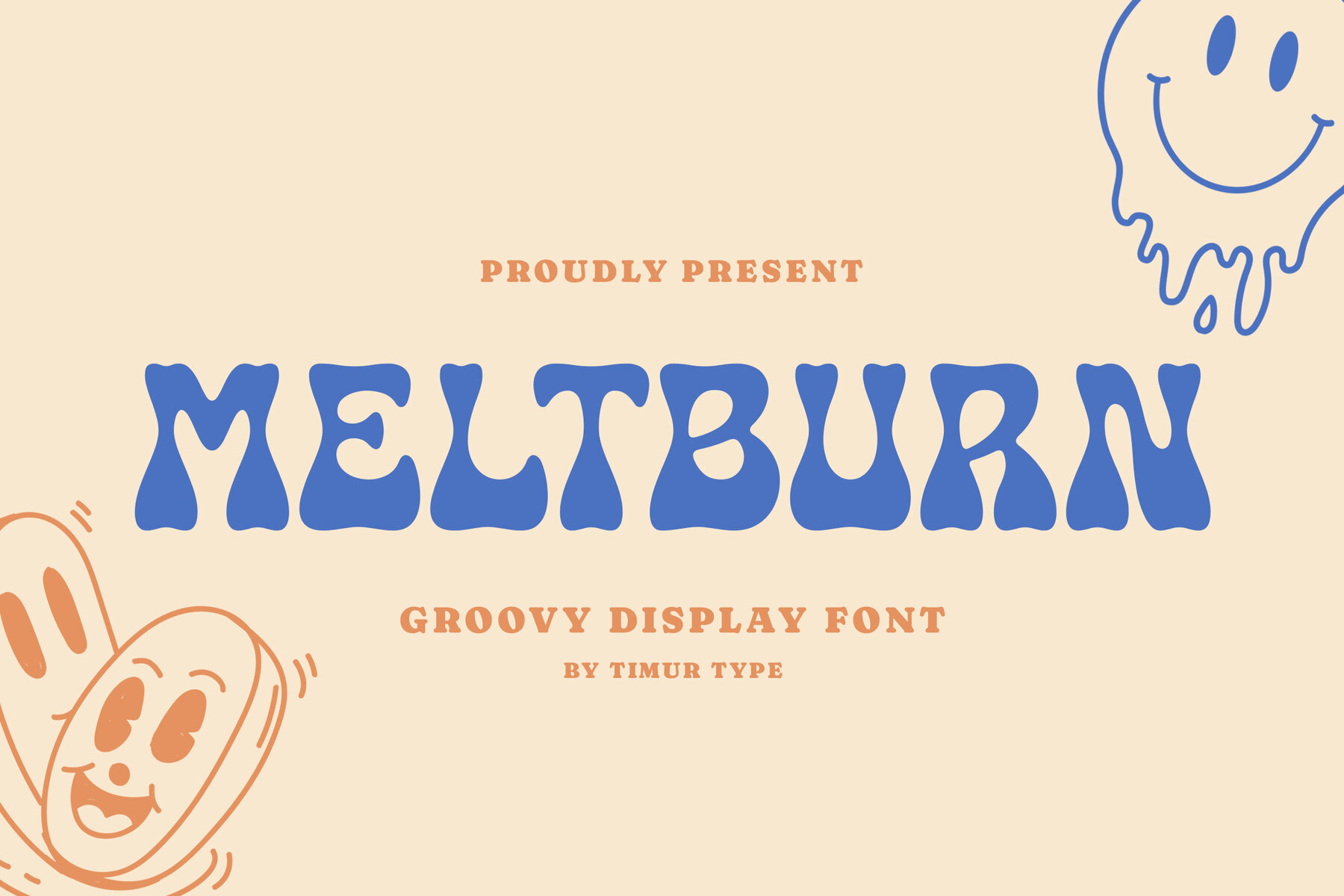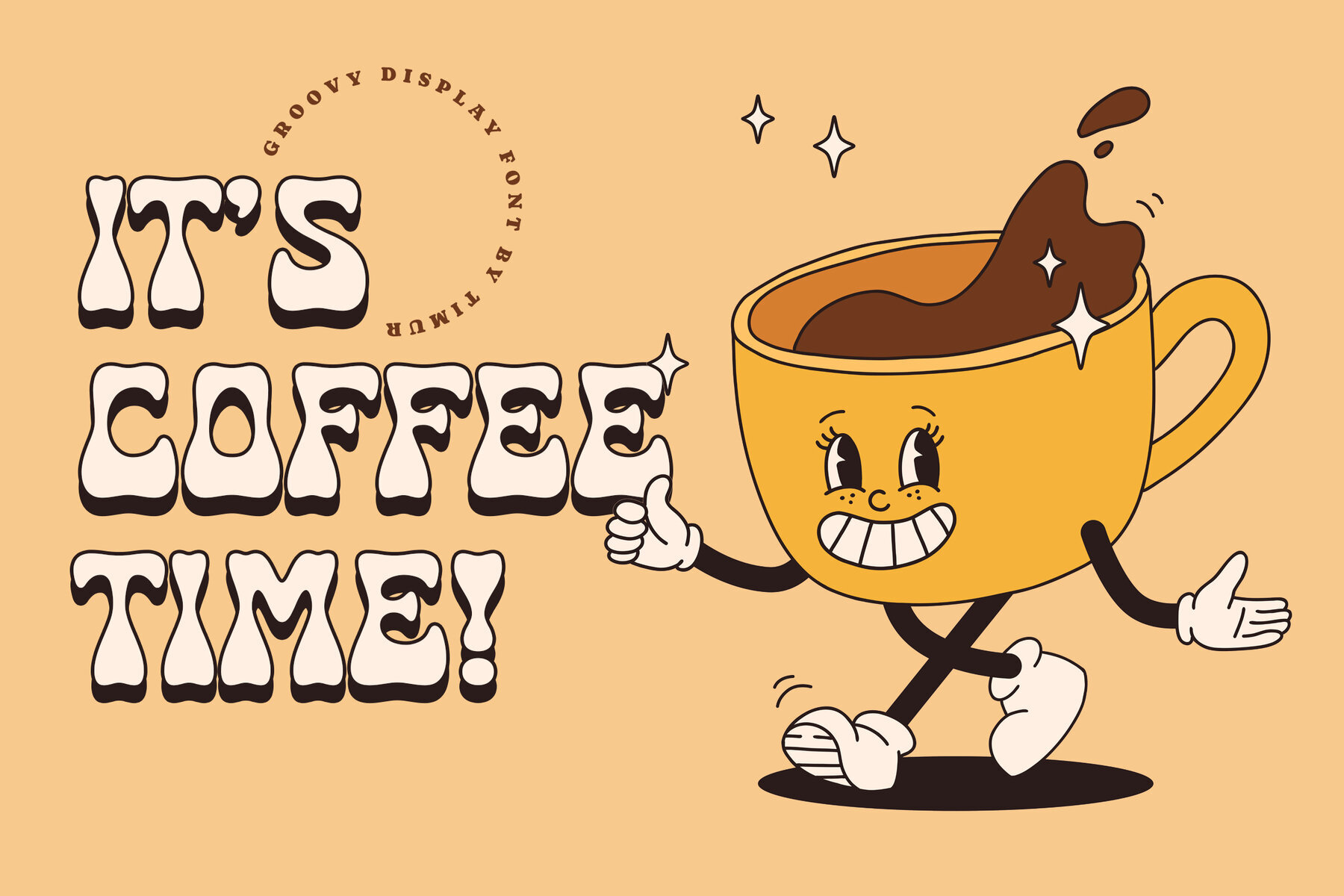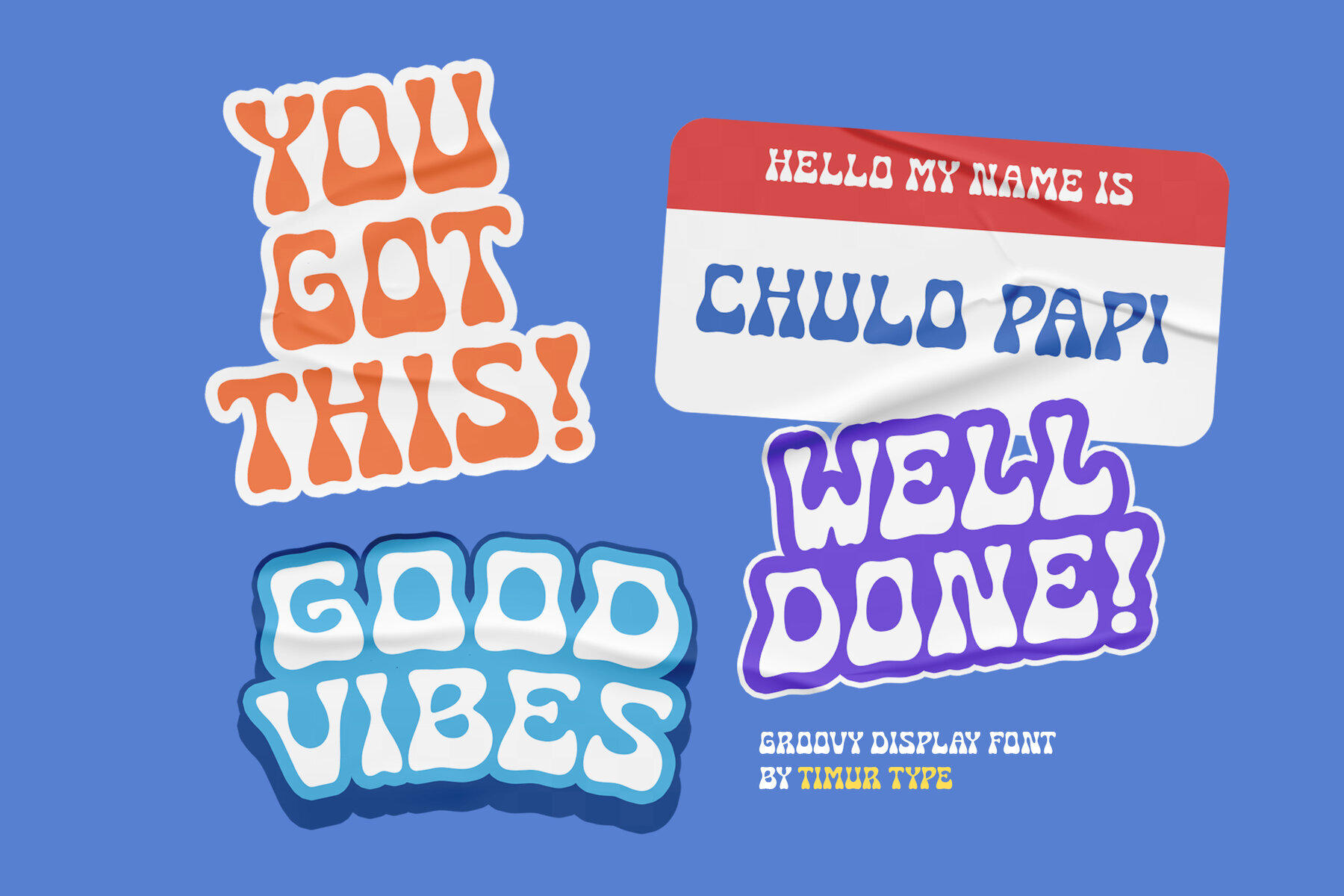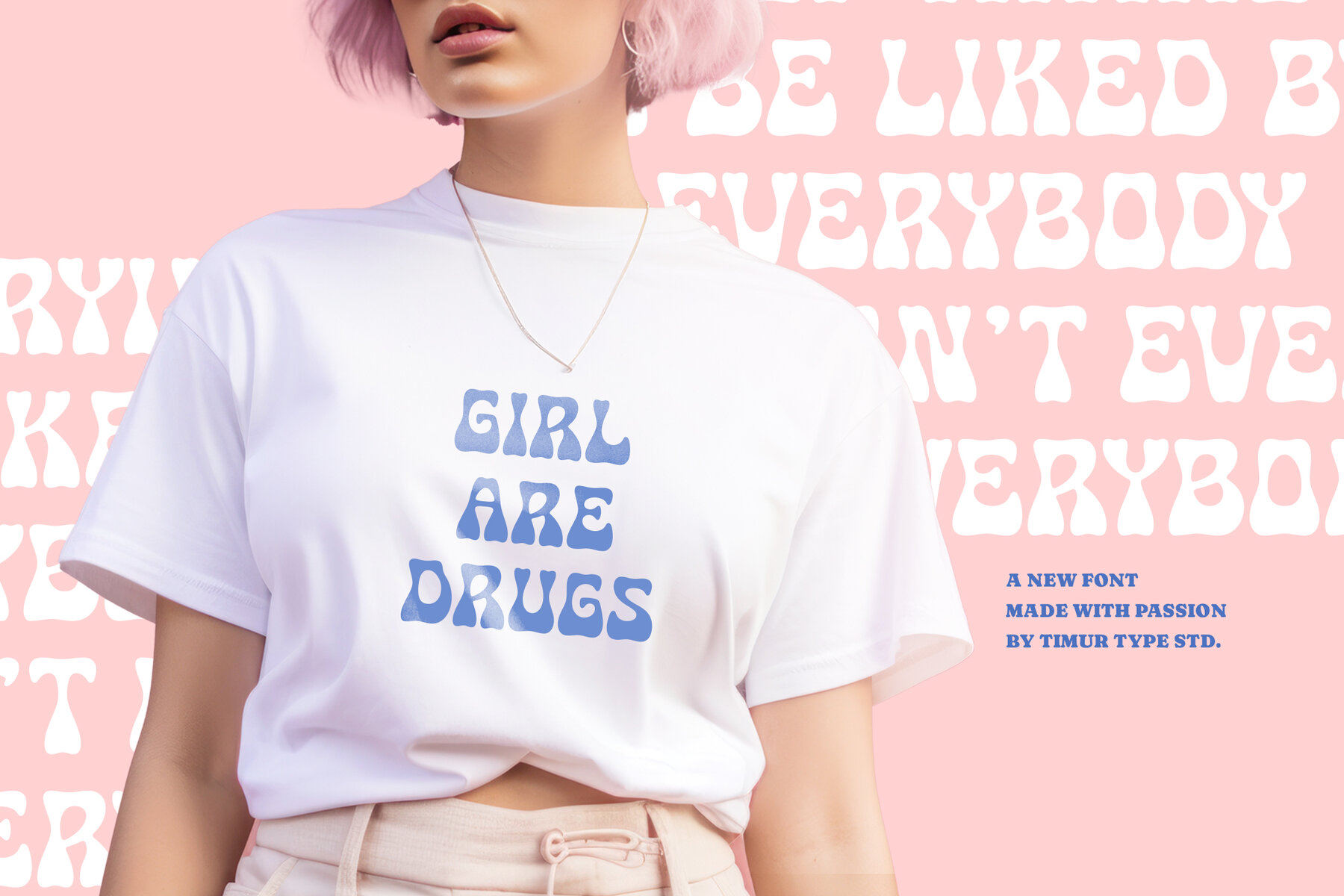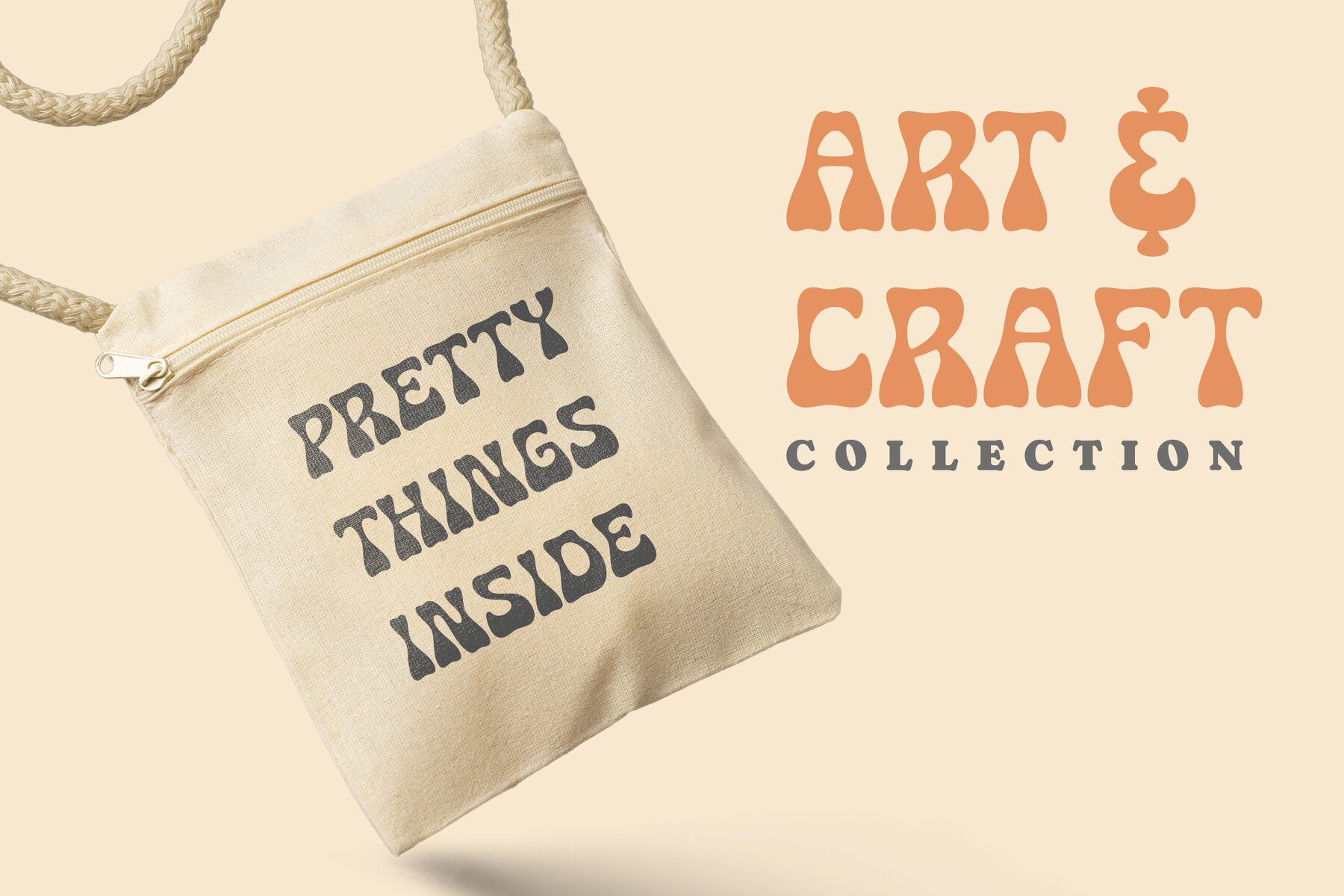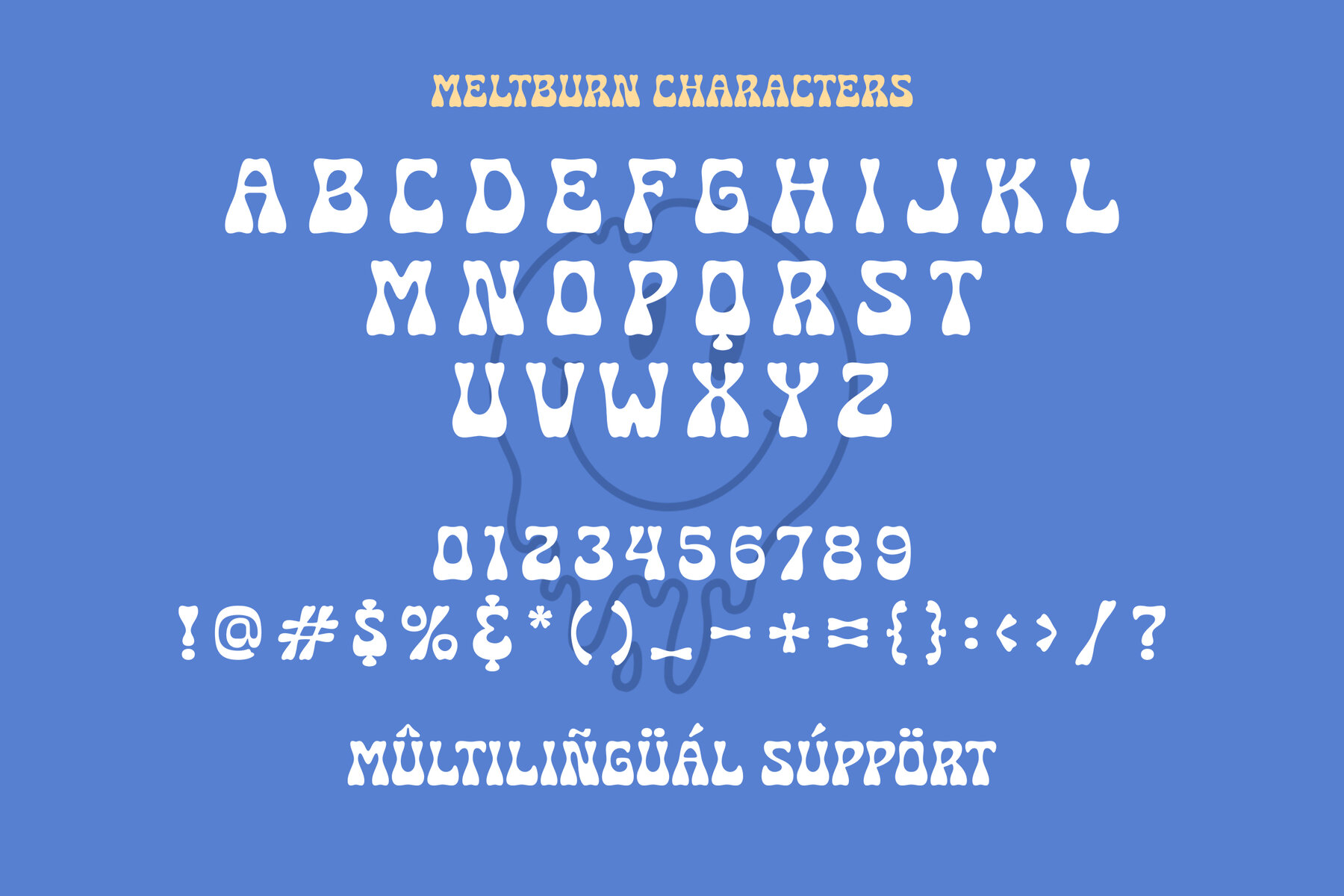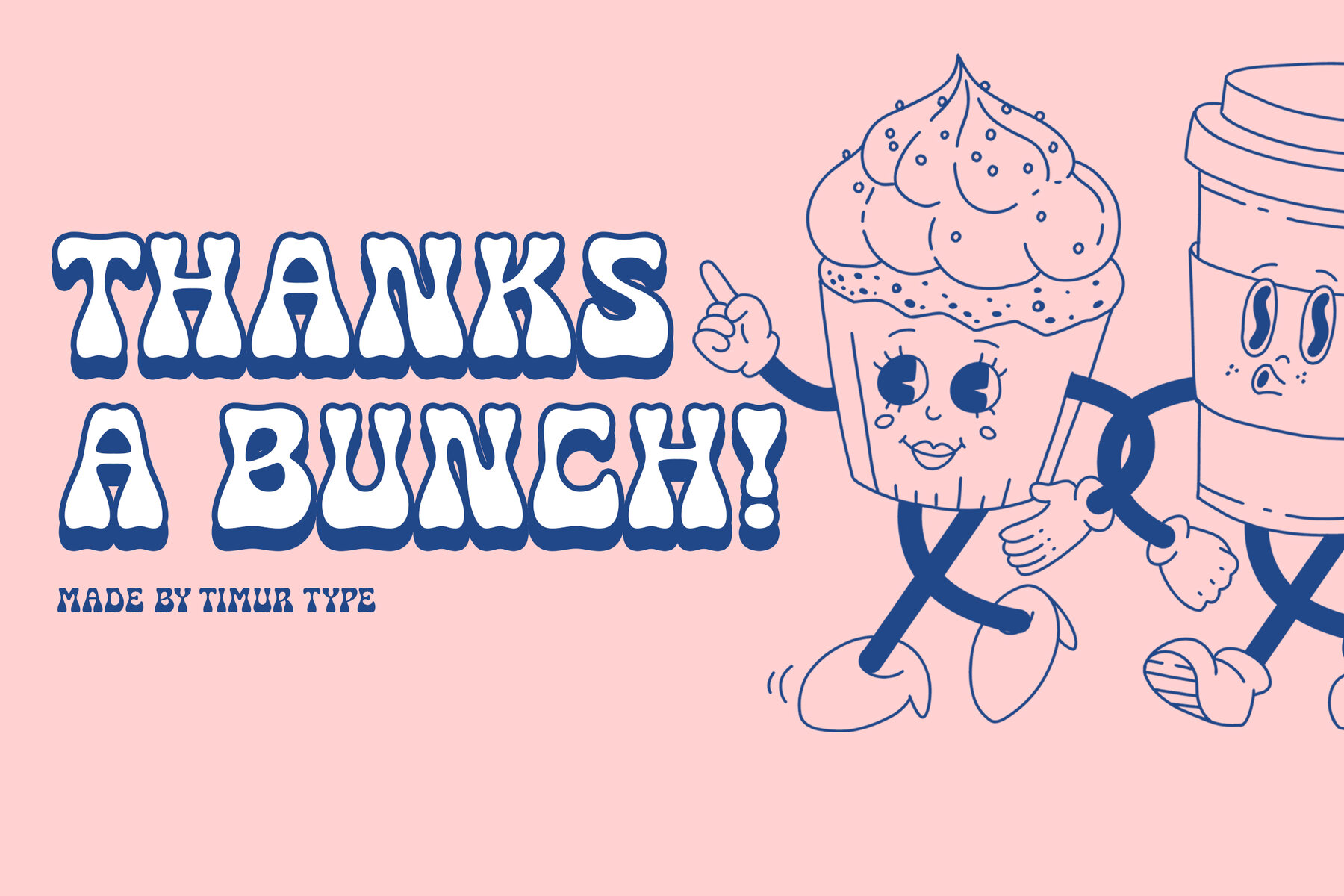
Meltburn Font
Meltburn Regular
Meltburn is a handwritten groovy display font that brings a modern and fresh touch to any project. Its inviting and warm feel makes it an ideal choice for product packaging, branding projects, magazines, social media, and wedding invitations. Utilize its unique style to add character and charm to your text, making your designs stand out.
This font comes with a full set of standard alphabet characters and punctuation, alongside multilingual support, ensuring versatility for various languages and contexts. Whether you're crafting a compelling headline or adding a personal touch to a message, Meltburn provides a stylish and engaging solution.